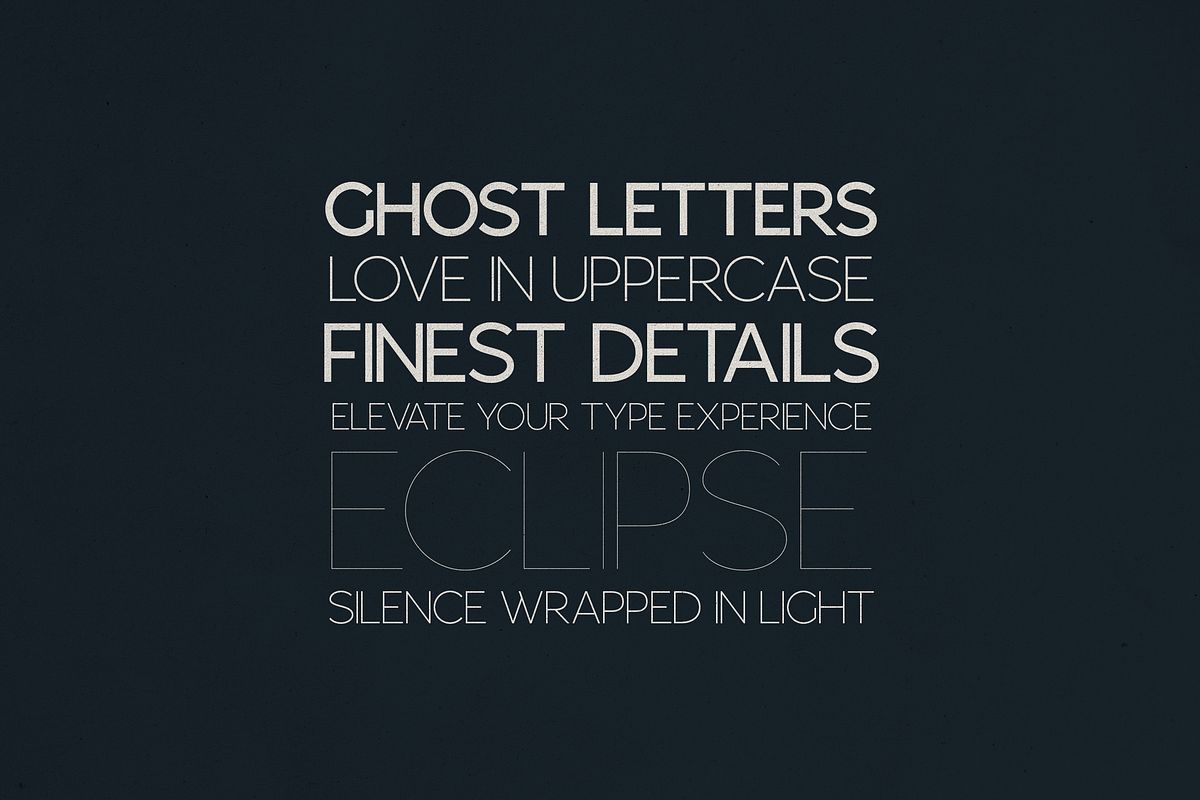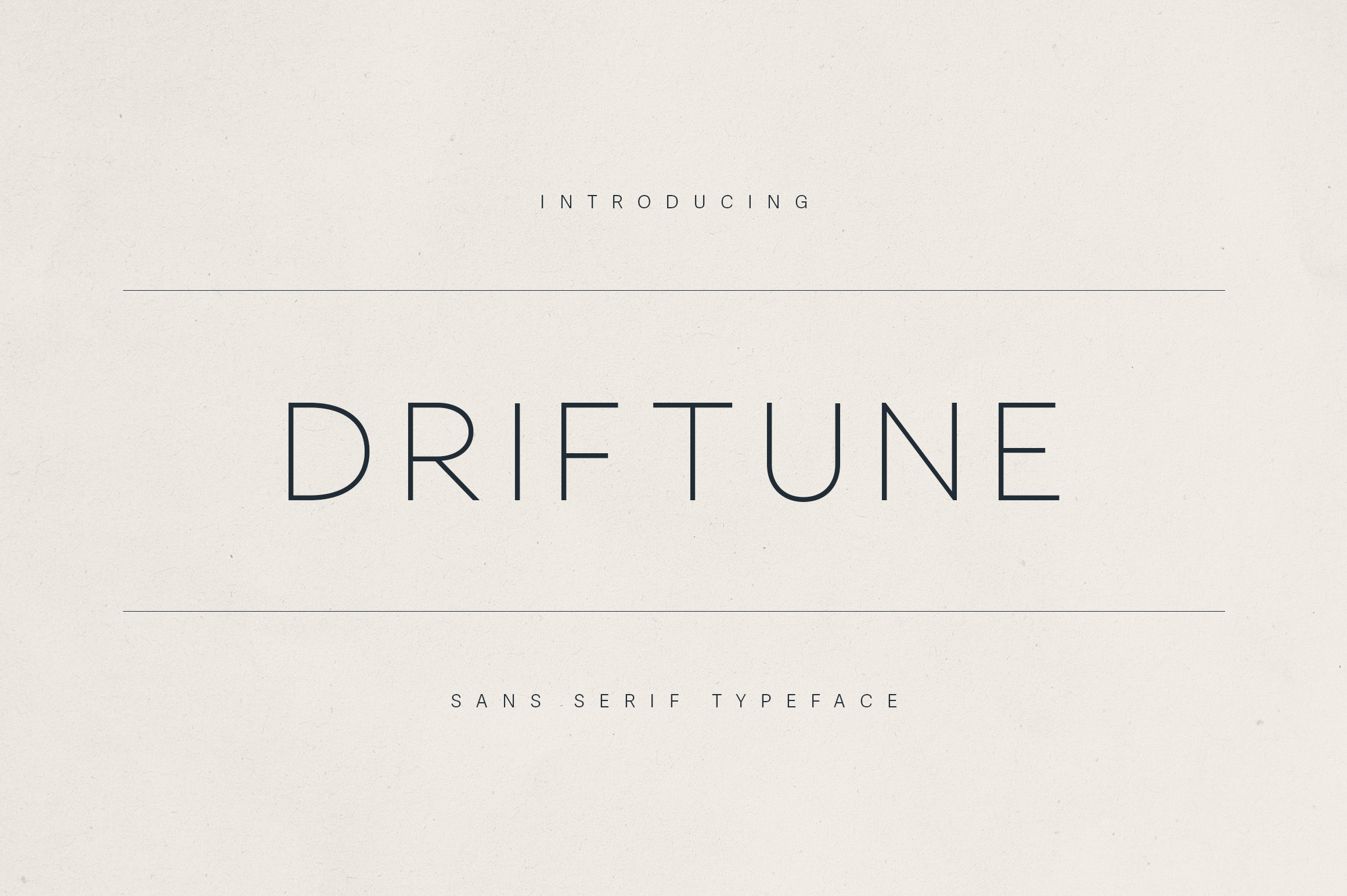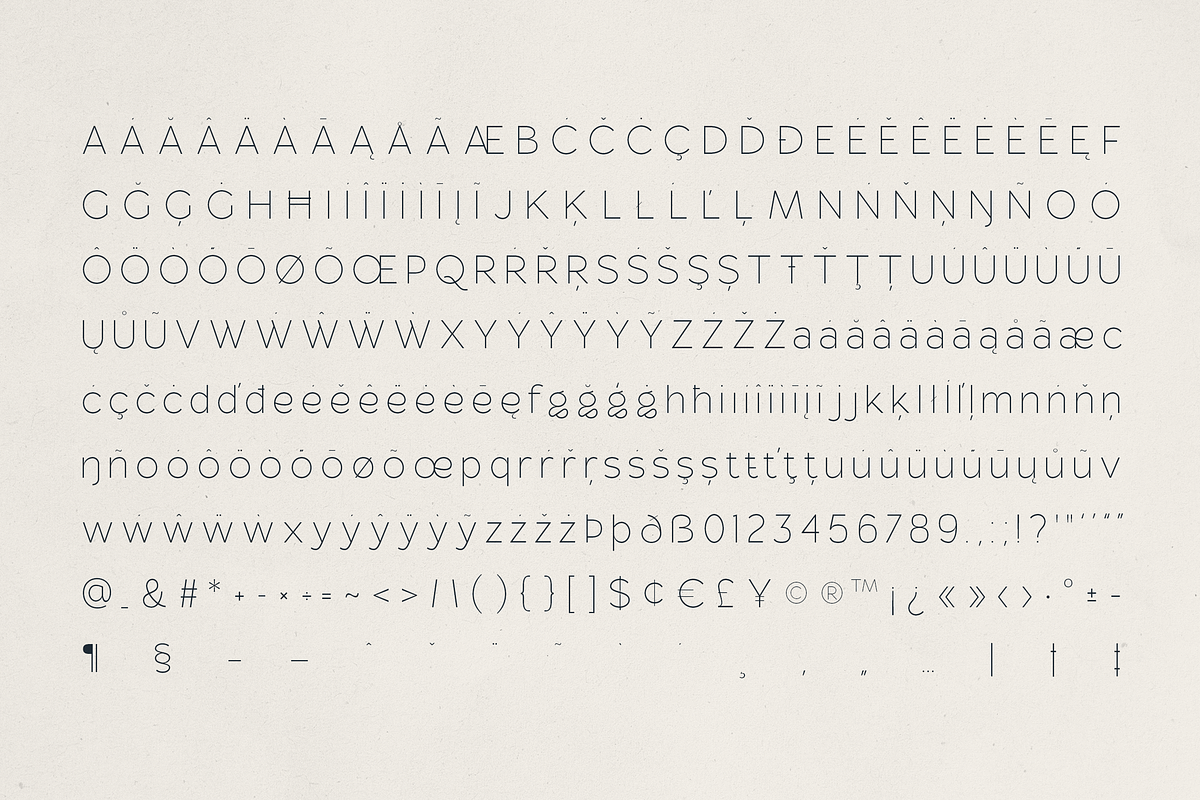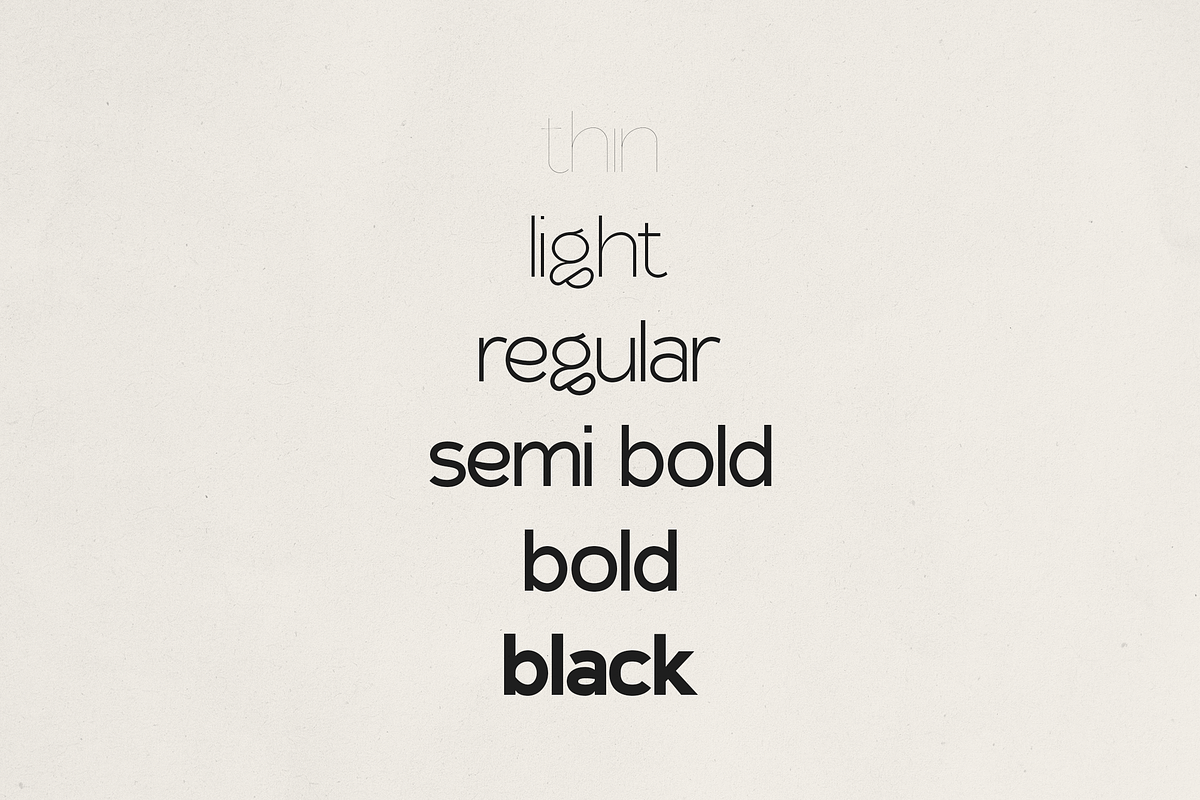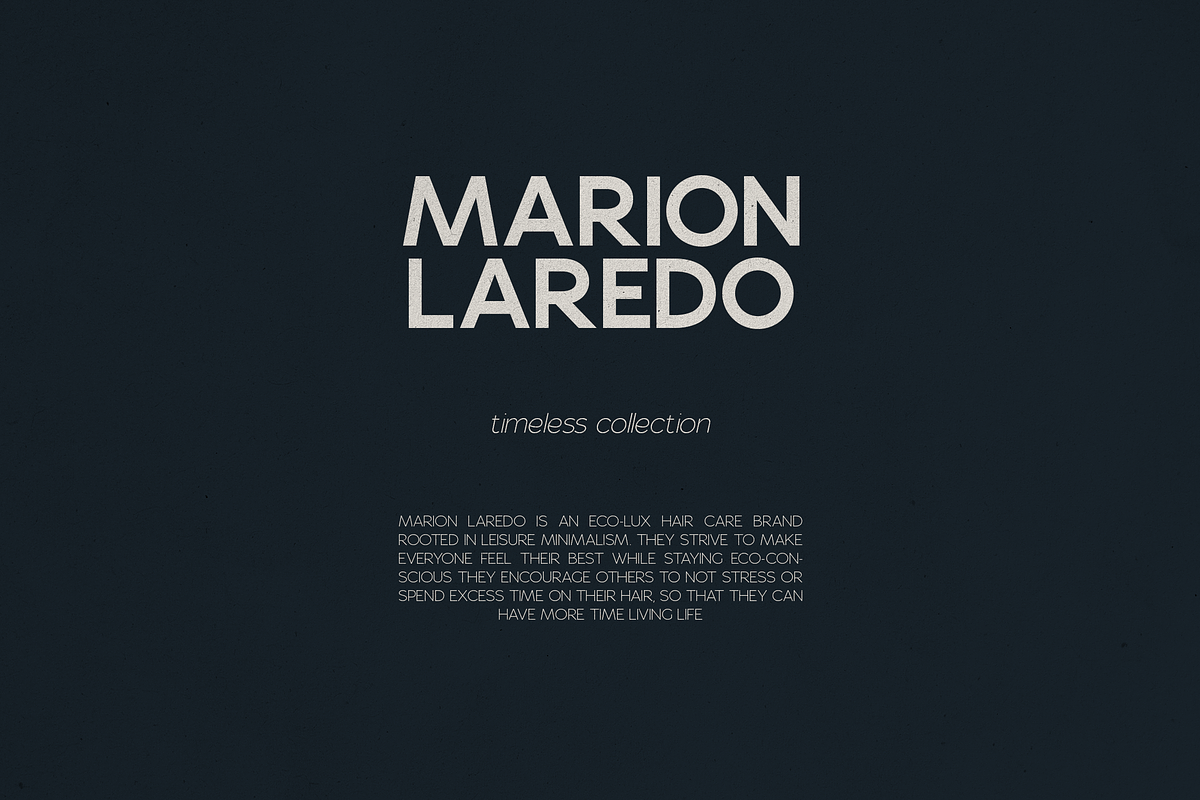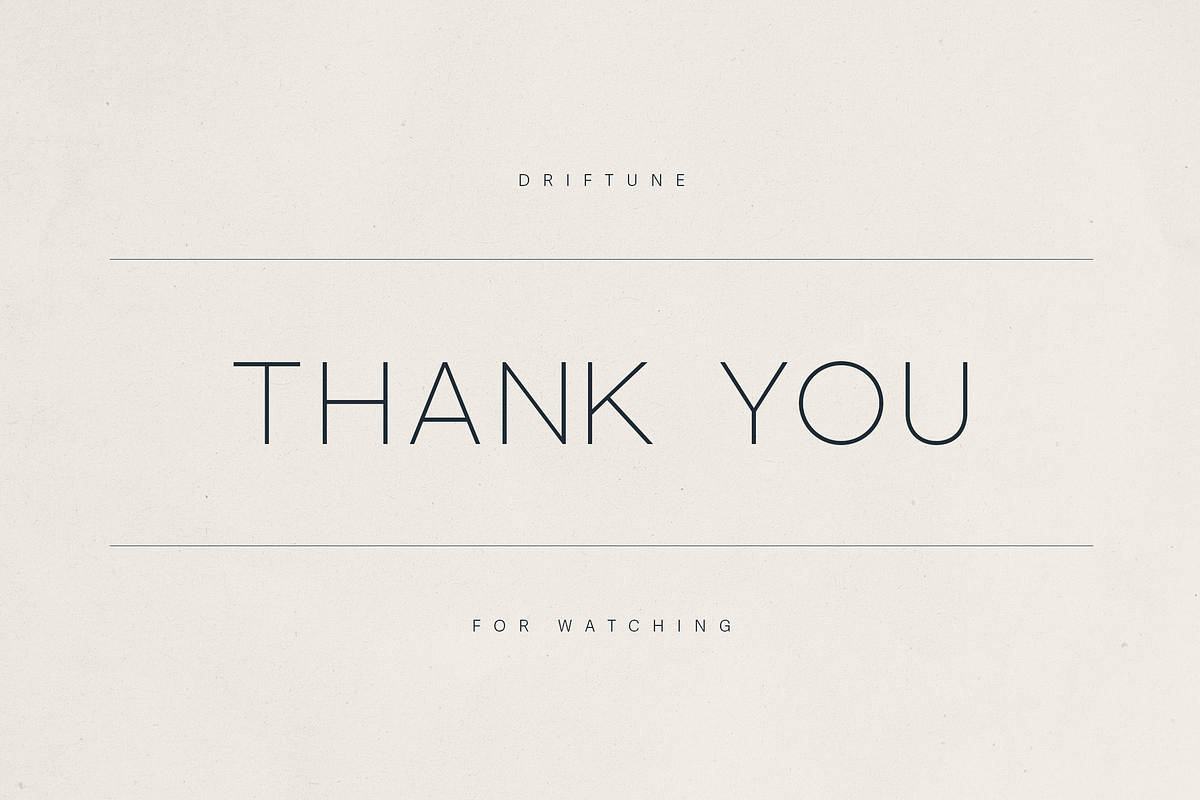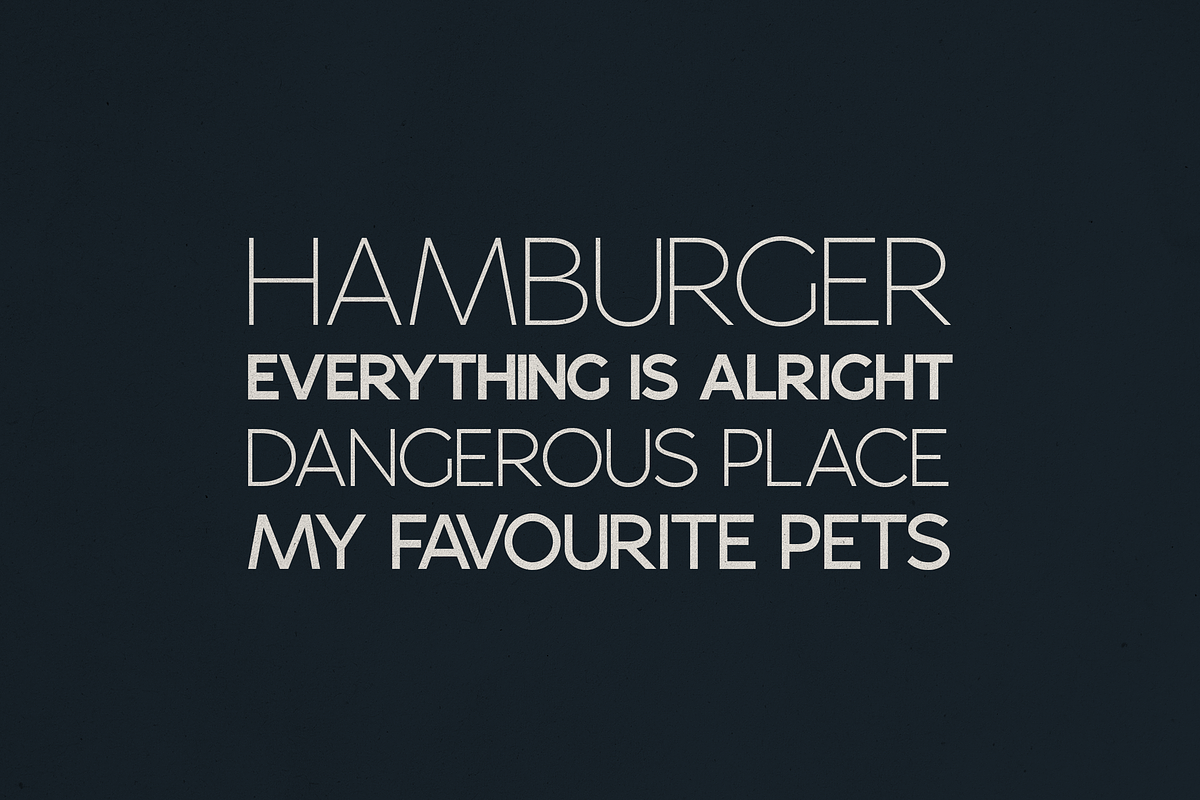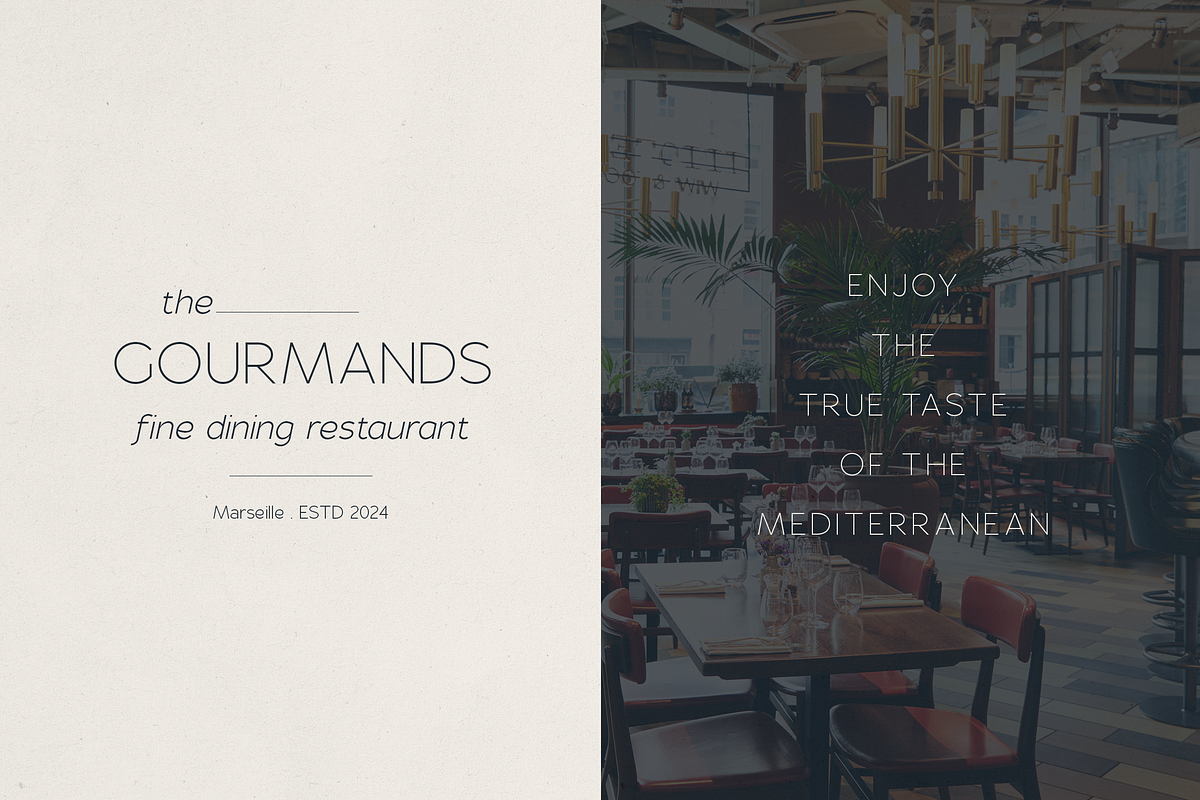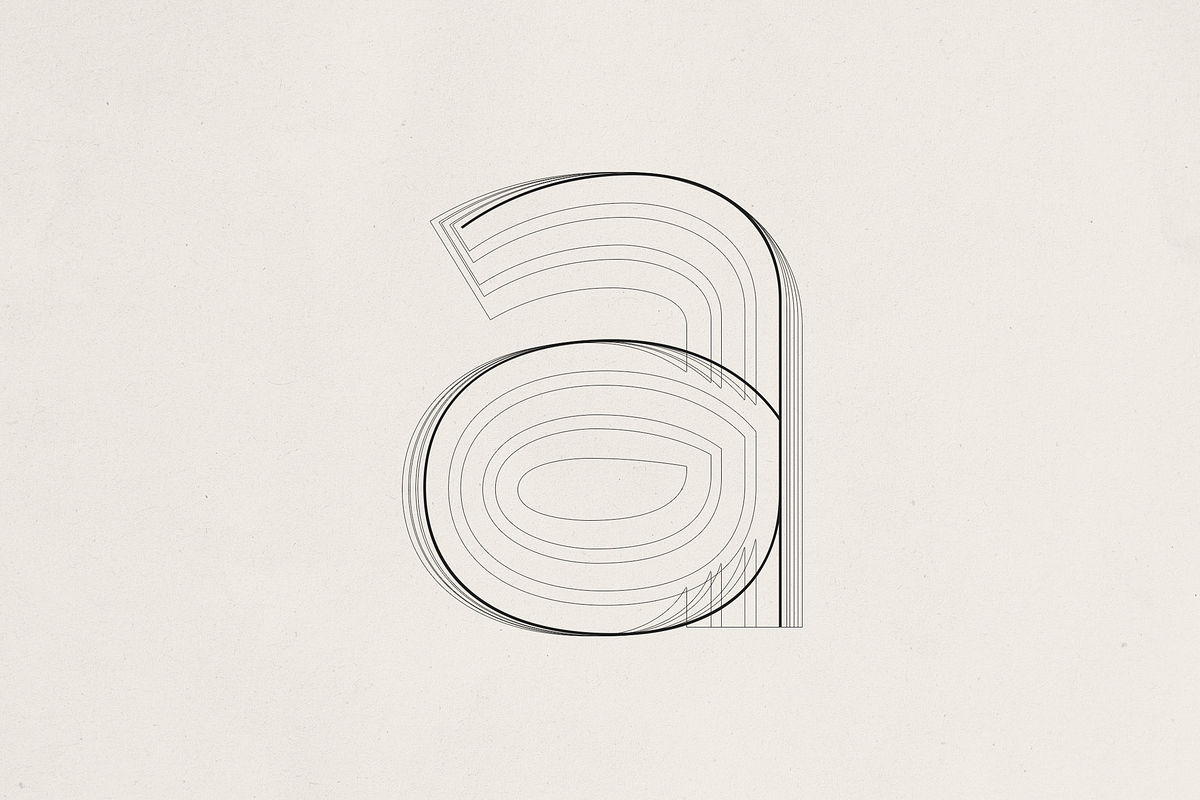
Driftune – Sans Serif Typeface
Driftune – Modern Elegant Sans Serif Typeface
Driftune is a refined sans serif typeface that blends minimalist elegance with versatile functionality. With its clean lines, generous spacing, and sophisticated character shapes, Driftune is perfect for modern branding, luxury logos, editorial layouts, high-end packaging, and upscale restaurant identities.
Whether you're designing for fashion, hospitality, or creative industries, Driftune brings a sense of timeless clarity and quiet confidence to any project. Its light and airy aesthetic pairs beautifully with both classic and contemporary styles, making it an ideal choice for premium, minimalist design.
- Sleek, modern sans serif style
- Ideal for branding, editorial, and lifestyle design
- Supports multilingual characters
- Perfect for both display and body text
- Clean and professional look with a luxury feel
Make your brand speak elegance with Driftune – a typeface designed to impress with subtle sophistication.